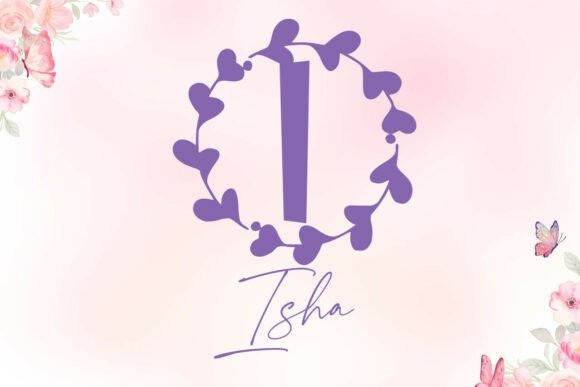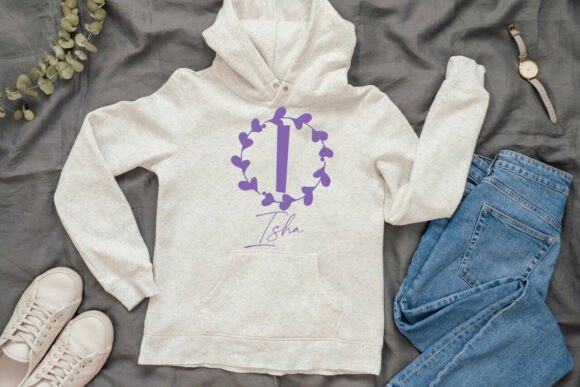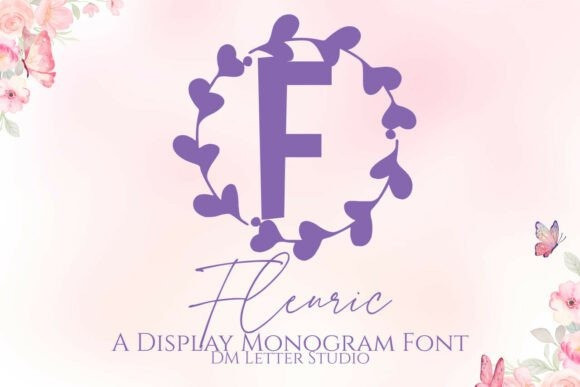
Fleuric Monogram Font
Fleuric Monogram Font turns initials into graceful botanical marks. Stems and curves feel poised. Spacing stays open, so tiny tags still read clearly. Use it for wedding suites, boutique logos, keepsake gifts, and premium packaging. Moreover, Fleuric pairs beautifully with soft serifs and modern sans. Therefore, your layouts feel refined without extra work.
Set single, double, or triple initials for logos and seals. Then frame them with laurel rings, oval borders, or fine rules. Since proportions favor symmetry, polished compositions build in minutes. As a result, your thumbnails stand out on crowded marketplaces. Plus, Fleuric scales from jewelry cards to venue signage with ease.
Keep initials large and let white space breathe. Pair the headline monogram with a quiet serif or humanist sans. Meanwhile, add micro shadows, thin inner strokes, or a fine frame. Because the structure is airy, metallic accents raise perceived value. Try champagne with charcoal. Or choose blush with espresso for a warm, romantic set.